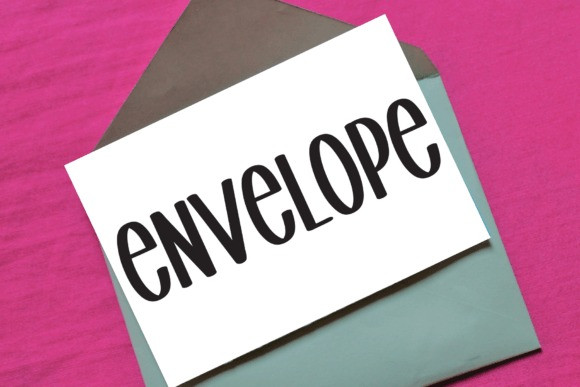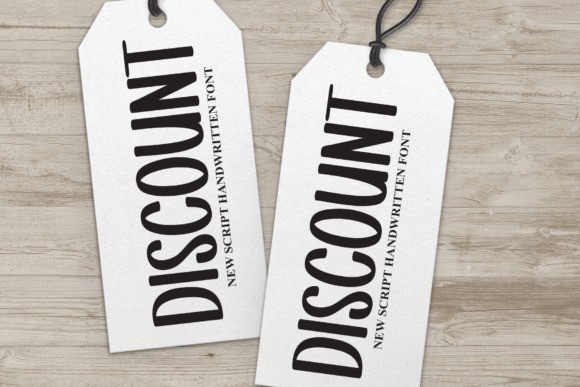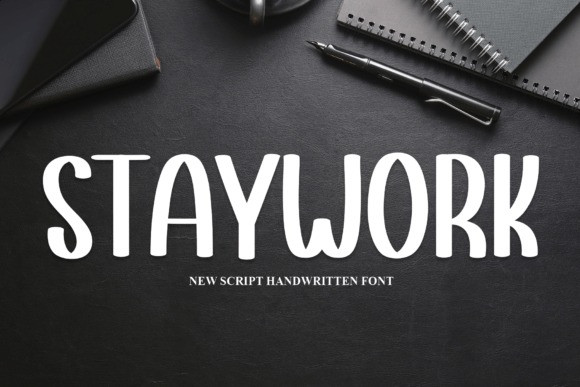
Staywork Display Font
Staywork Display Font,  latest style letters are perfect for wall displays, wedding invitations, social media post logos, advertisements, product packaging, product designs, labels, photography, watermarks, invitations, stationery, and any project that requires handwriting taste.